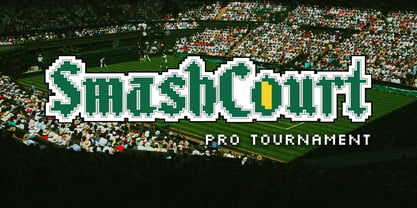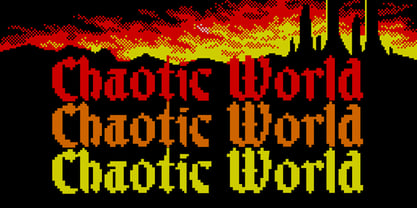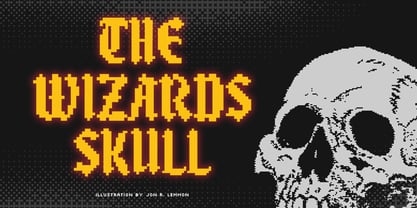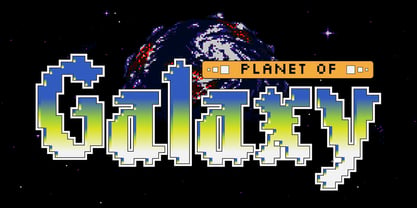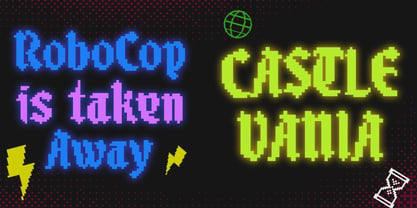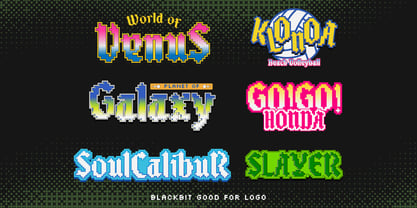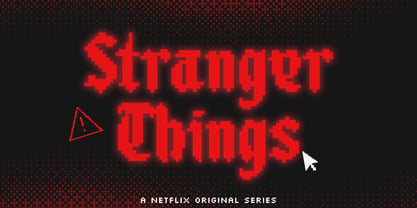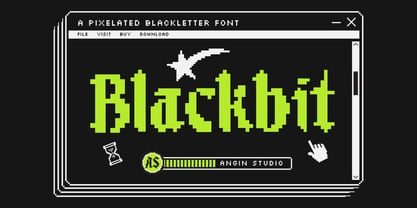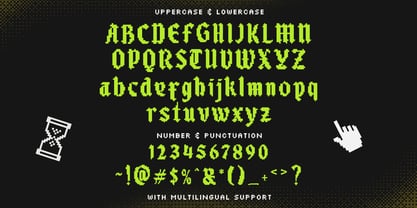
Blackbit Pixelated
by Angin Studio
The Blackbit Pixelated Font Family was designed by Ahmad Aswin, David Novrian and published by Angin Studio. Blackbit Pixelated contains 1 styles. More about this family
Where design meets pixel perfection. Blackbit is our first pixelated blackletter new font inspired by the golden era of retro games. This font will bring you back to the golden era of 8-bit and Sega game visuals. Blackbit font combines pixelated style with modern touch and readability. Elevate your creations with our pixel-perfect font, where each character is a testament to the artistry of the pixel grid. Not just limited to Latin, Blackbit supports multiple languages, numbers, and symbols. It makes it easy for you to create retro designs. Whether you are working on a gaming project or just want to add some retro touch for nostalgia to your creations, this font is the answer.
Designers: Ahmad Aswin, David Novrian
Foundry: Angin Studio